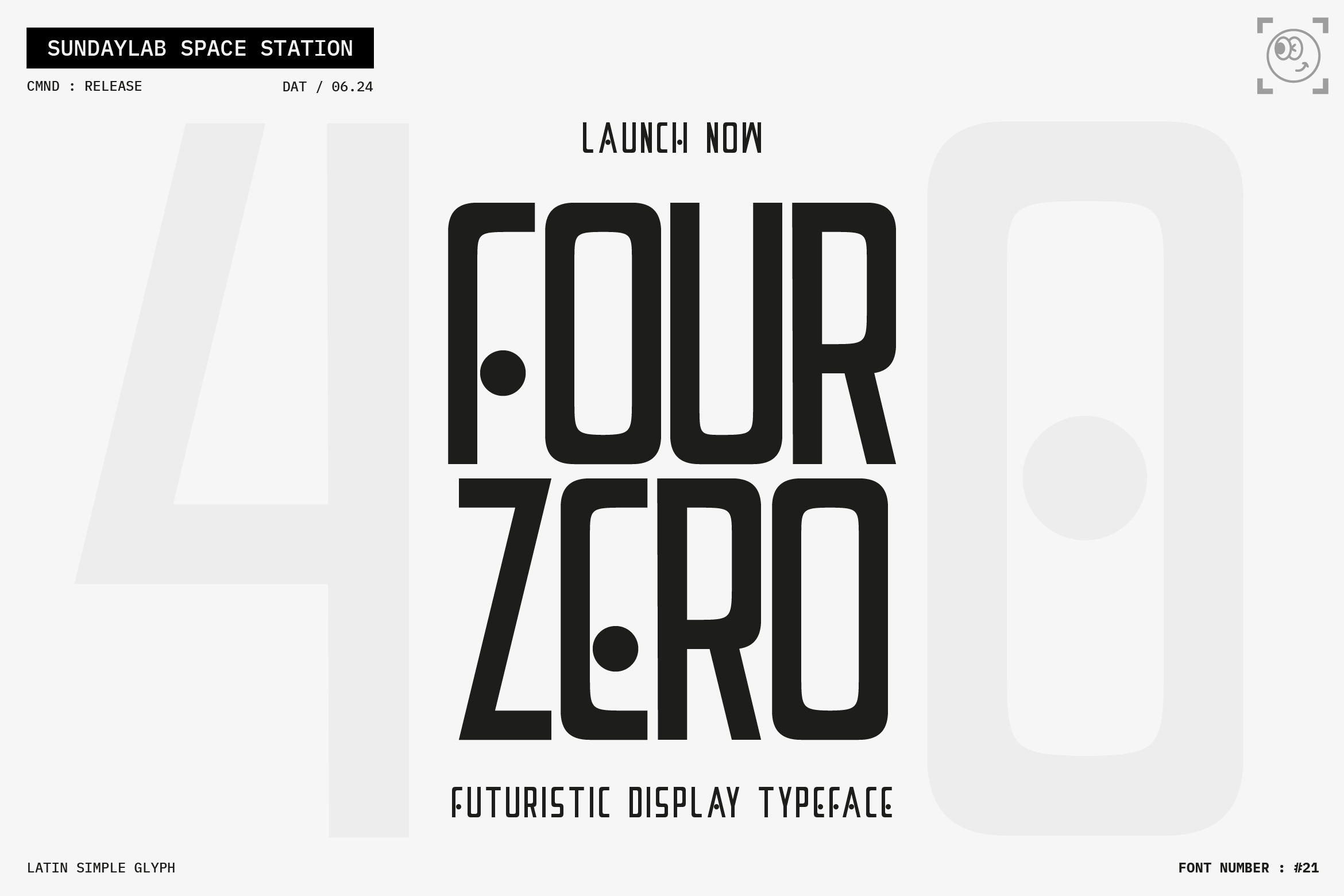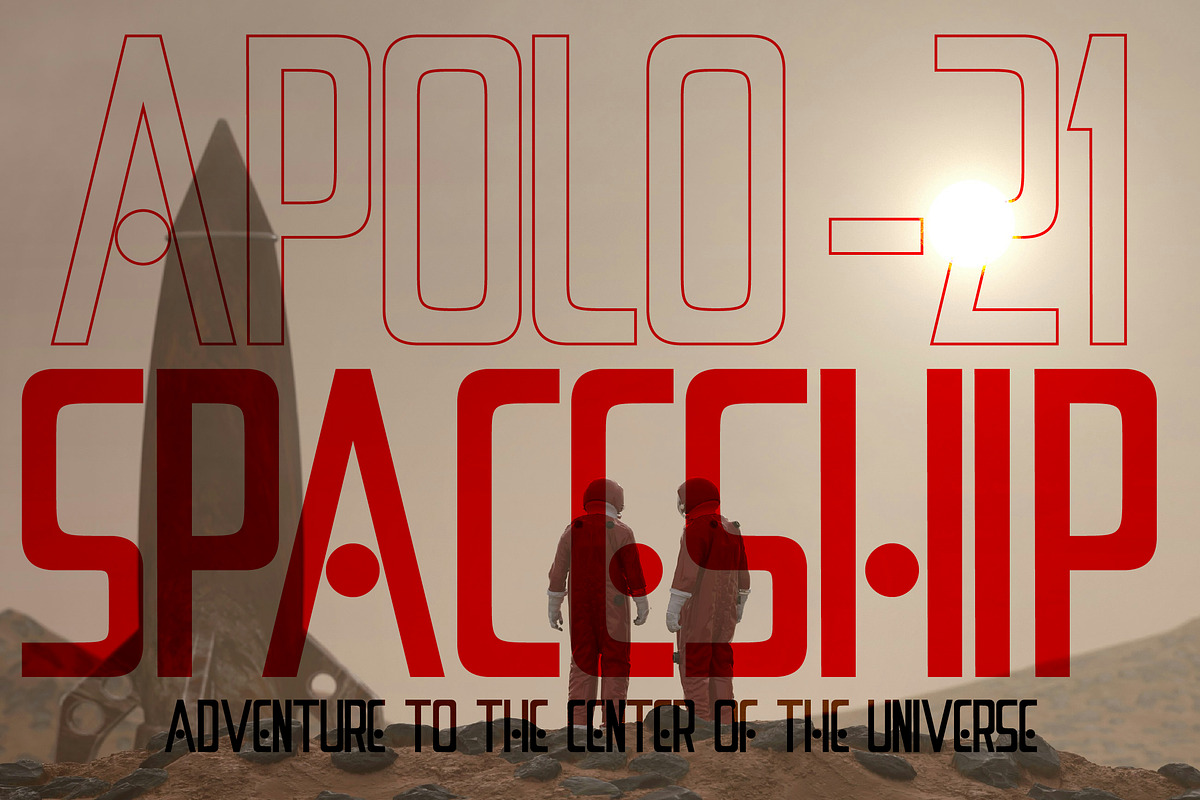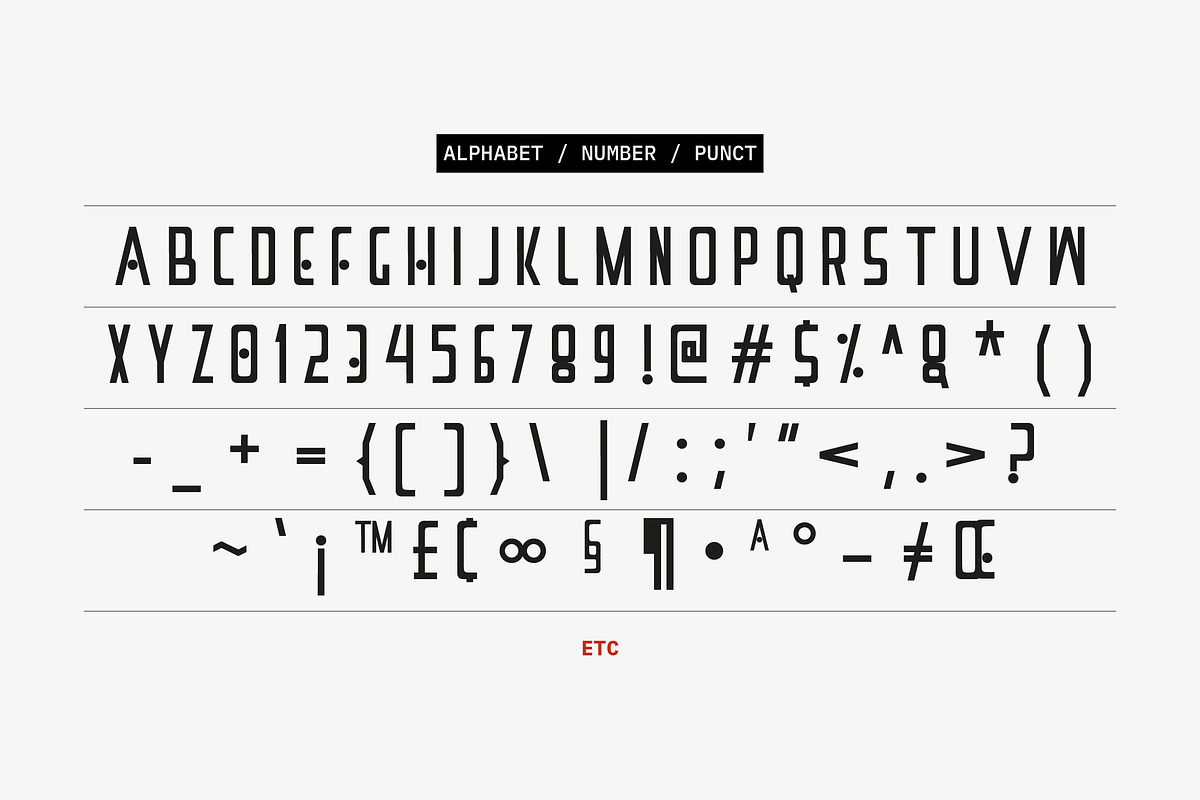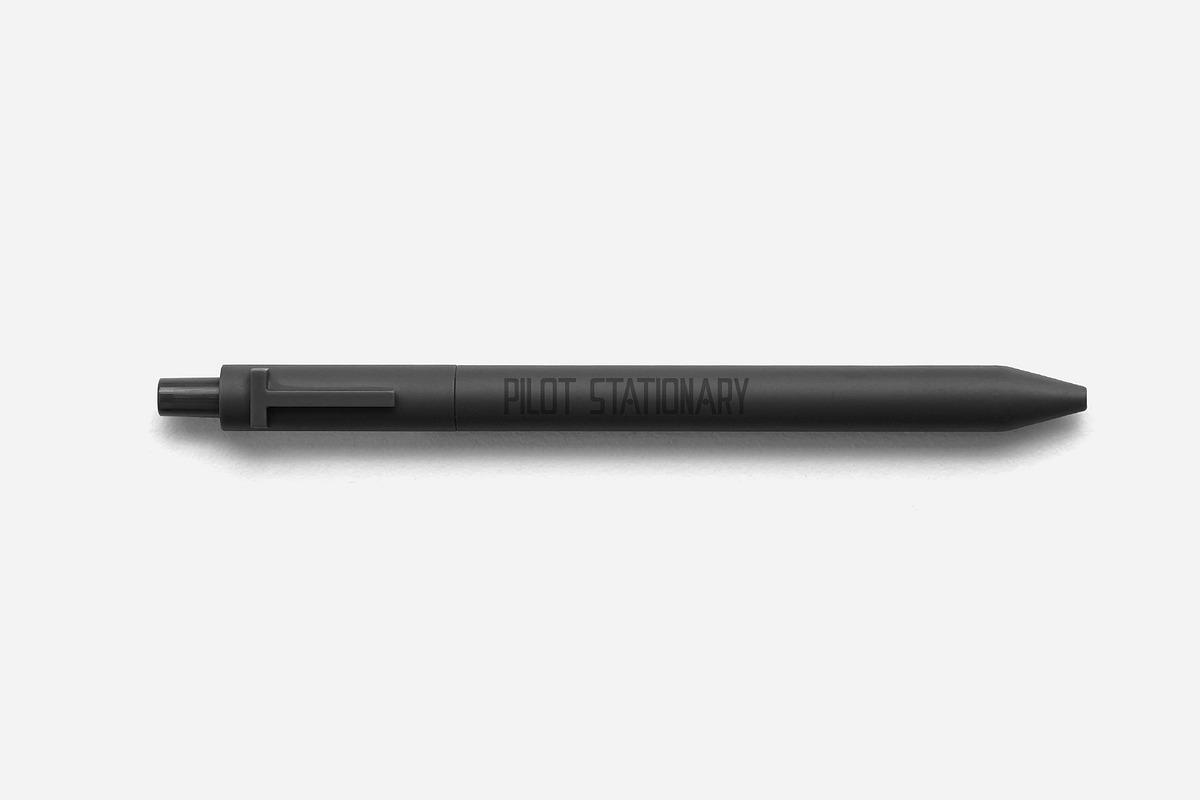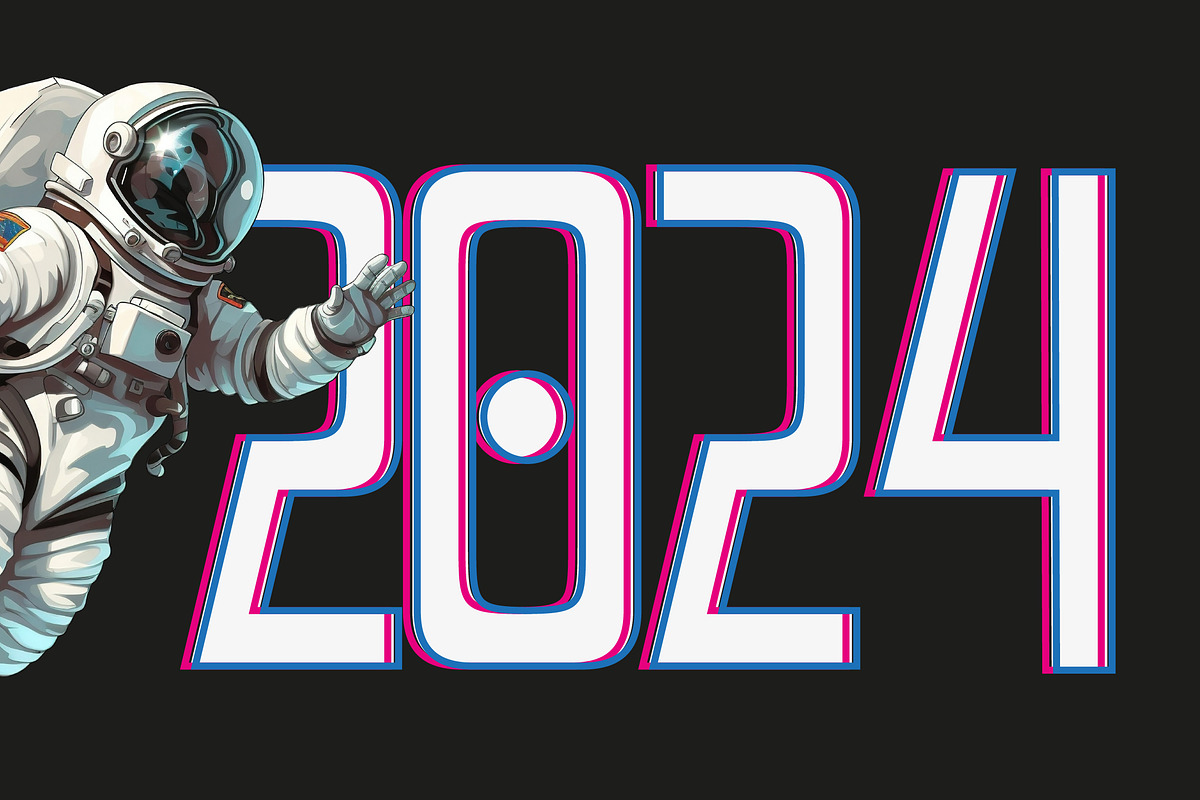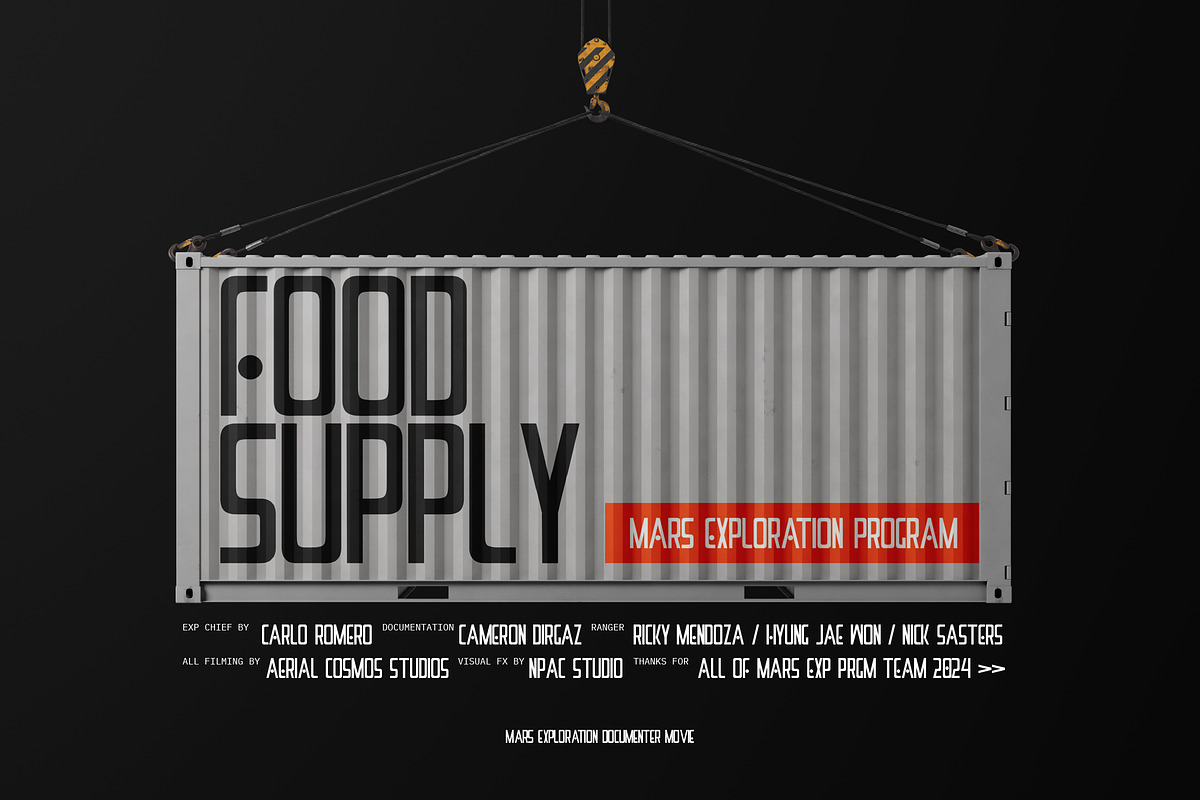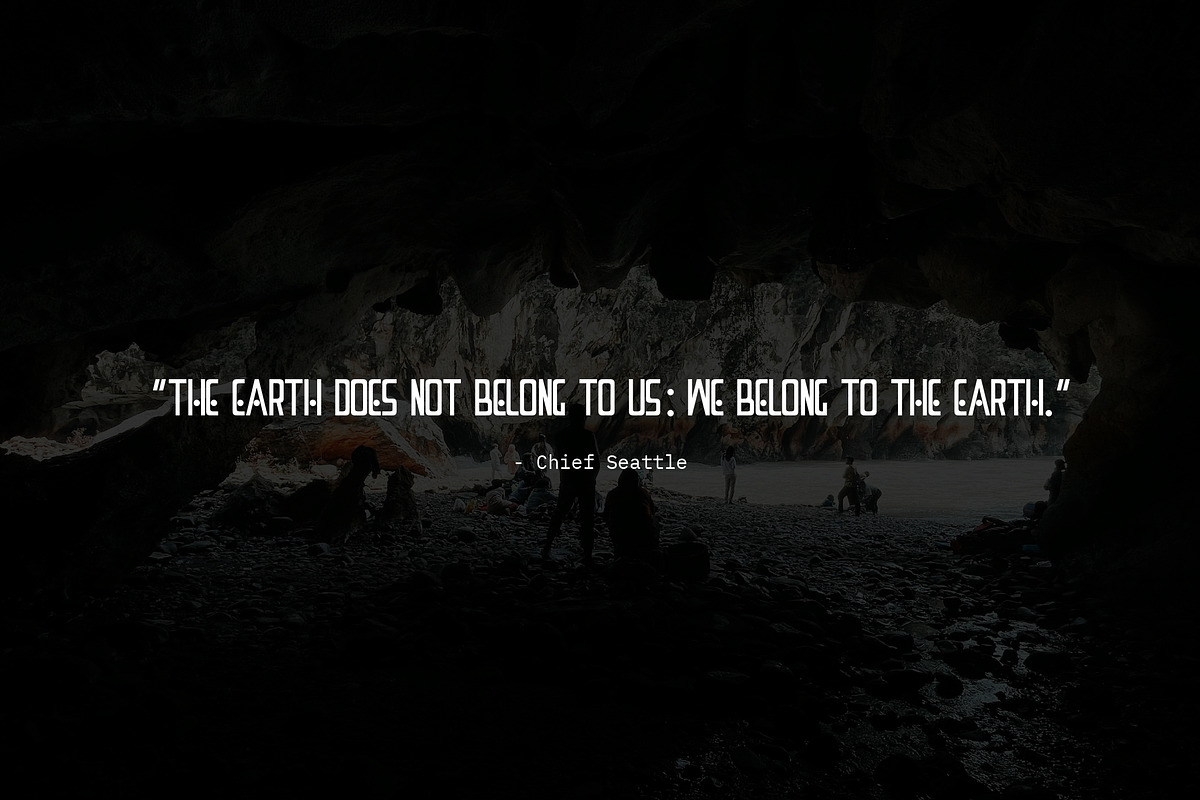
Four Zero Futuristic Typeface
Introducing
Four Zero Typeface
Four Zero is a display font that can help display messages in the designs you create. With its futuristic character, it is suitable for you to use on posters, flyers, magazine covers, books, vinyl, CDs, and many other media.